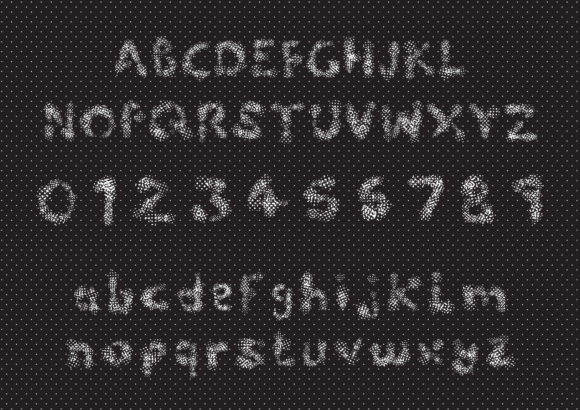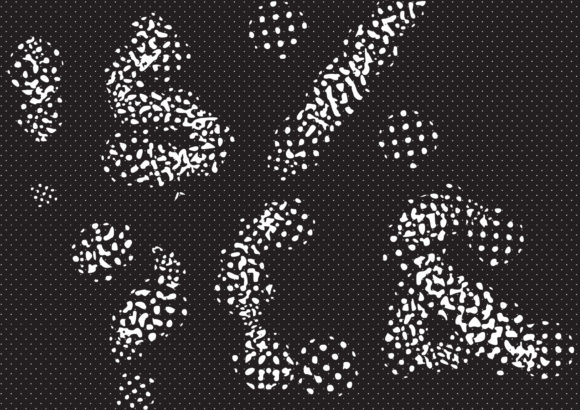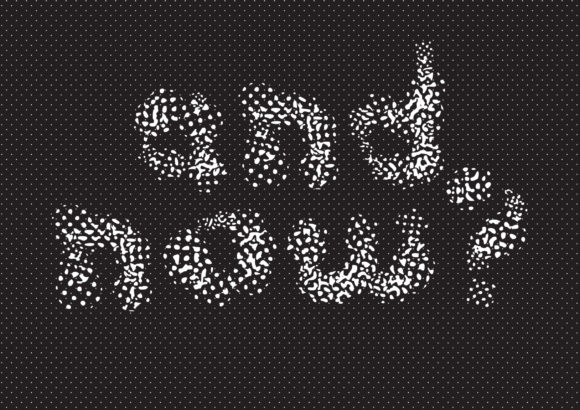
Introducing Eye Test Font: The Ultimate Display Font for Crafty Projects
Are you a designer or crafter looking for a unique and authentic font to elevate your creative projects? Look no further than Eye Test Font, a display font that is sure to make a statement. In this article, we’ll dive into the features and benefits of Eye Test Font, and explore how you can use it to create outstanding and original crafts projects.
What is Eye Test Font?
Eye Test Font is a display font that is made up of sized dots, giving it a distinctive and eye-catching appearance. Each character is carefully crafted to create a unique and authentic look that is sure to grab attention. Whether you’re working on a DIY project, a craft tutorial, or a design project, Eye Test Font is the perfect choice.
Key Features of Eye Test Font
- Unique Dot Design: Each character in Eye Test Font is made up of sized dots, creating a distinctive and visually appealing look.
- Authentic Display Font: Eye Test Font is designed to be used as a display font, making it perfect for headings, titles, and other creative projects.
- High-Quality Design: Eye Test Font is carefully crafted to ensure that each character is clear and legible, even at small sizes.
- Versatile: Eye Test Font can be used for a wide range of creative projects, from DIY tutorials to design projects.
Benefits of Using Eye Test Font
So why choose Eye Test Font for your creative projects? Here are just a few benefits of using this unique font:
- Adds Visual Interest: Eye Test Font adds a touch of visual interest to any project, making it perfect for crafters and designers who want to create something truly unique.
- Easy to Read: Despite its unique design, Eye Test Font is easy to read and understand, making it perfect for tutorials, instructions, and other text-based projects.
- Customizable: Eye Test Font can be customized to fit your needs, allowing you to adjust the size, color, and style to match your project’s aesthetic.
Creative Projects with Eye Test Font
So what can you create with Eye Test Font? The possibilities are endless! Here are a few ideas to get you started:
- DIY Tutorials: Use Eye Test Font to create eye-catching headings and titles for your DIY tutorials, making it easy for readers to follow along.
- Crafting Projects: Add a touch of personality to your crafting projects with Eye Test Font, using it to label projects, create signs, and more.
- Design Projects: Use Eye Test Font to add visual interest to your design projects, including brochures, flyers, and other marketing materials.
- Signs and Labels: Use Eye Test Font to create eye-catching signs and labels for your crafting projects, making it easy to identify different materials and supplies.
Tips for Using Eye Test Font
Here are a few tips for getting the most out of Eye Test Font:
- Experiment with Sizes: Try out different sizes of Eye Test Font to see how it looks in different contexts.
- Play with Colors: Experiment with different colors to find the perfect match for your project’s aesthetic.
- Combine with Other Fonts: Try combining Eye Test Font with other fonts to create a unique and visually appealing look.
Eye Test Font is a unique and authentic display font that is perfect for crafters and designers looking to add a touch of personality to their creative projects. With its distinctive dot design and high-quality craftsmanship, Eye Test Font is sure to make a statement. Whether you’re working on a DIY tutorial, a design project, or a crafting project, Eye Test Font is the perfect choice. So why wait? Download Eye Test Font today and start creating outstanding and original crafts projects!